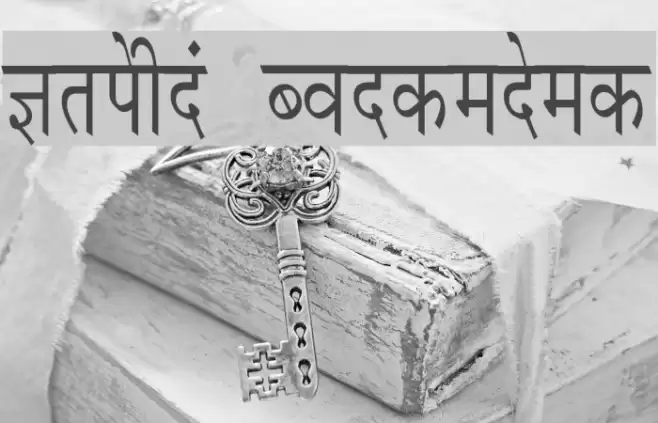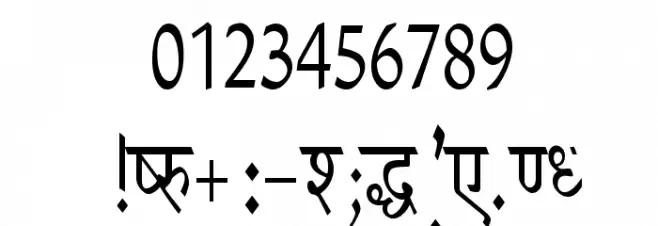
Krishna Condensed Font
Krishna Condensed Description
This font features a condensed style with a modern and clean appearance. The characters are tightly spaced, giving it a compact look, which is ideal for fitting more text into a limited space. The strokes are consistent in thickness, providing a uniform and balanced aesthetic. The numerals are clear and distinct, making them easily readable. The special characters are well-integrated, maintaining the overall style of the font. This font is versatile, suitable for both digital and print media, and can be used effectively in various design projects.
A modern, condensed font with tight spacing and uniform strokes from Uncategorized fonts.
- Proposed Projects: Ideal for headlines, posters, and any design requiring a compact and modern typeface.
- Character Spacing: Tight
- Use Case: Headlines, Posters, Digital Media